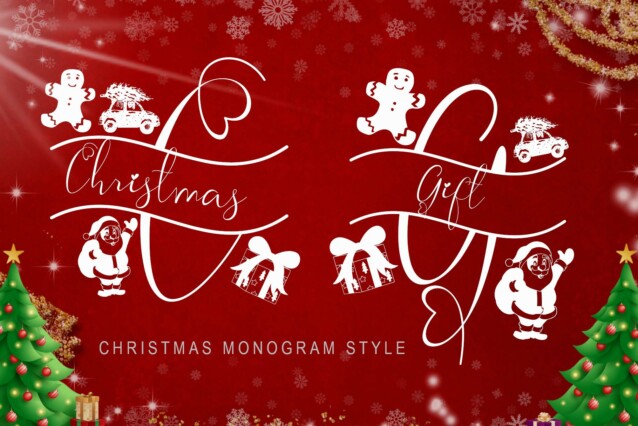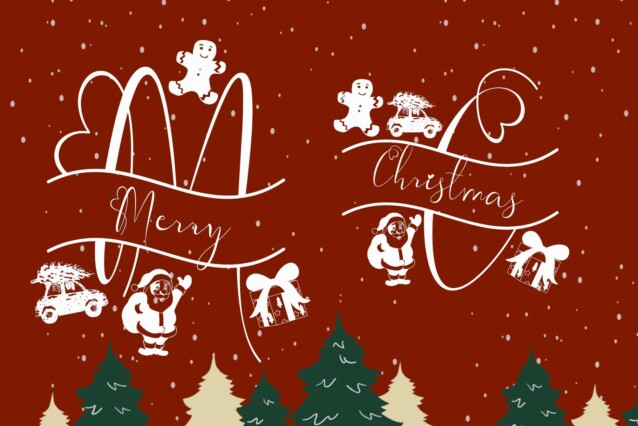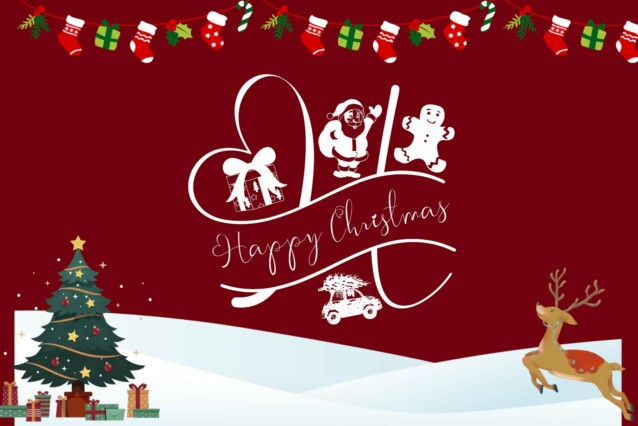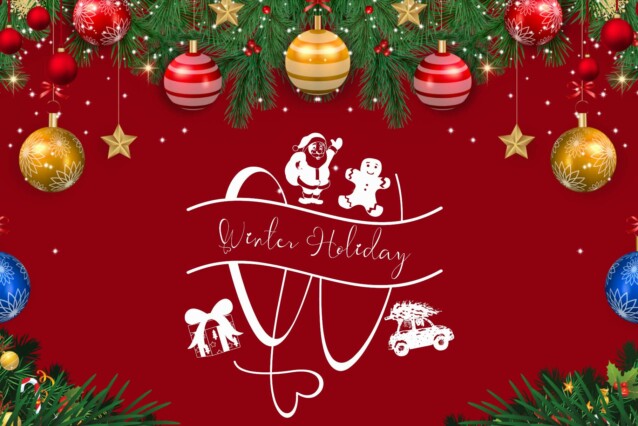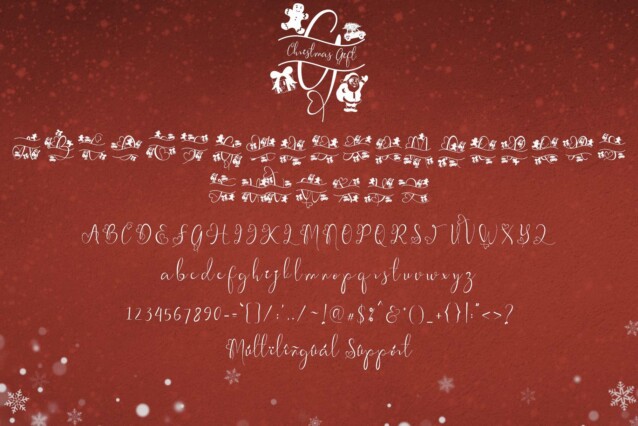
Christmas Gift Monogram Font
Christmas Gift Monogram Font is a beautiful and unique Christmas monogram font. This font is equipped with monograms, uppercase, lowercase, numerals, punctuation, ligatures, and multilingual support. Very suitable for Christmas, Valentine’s, winter, logos, banners, posters, prints, branding, stickers, and others.